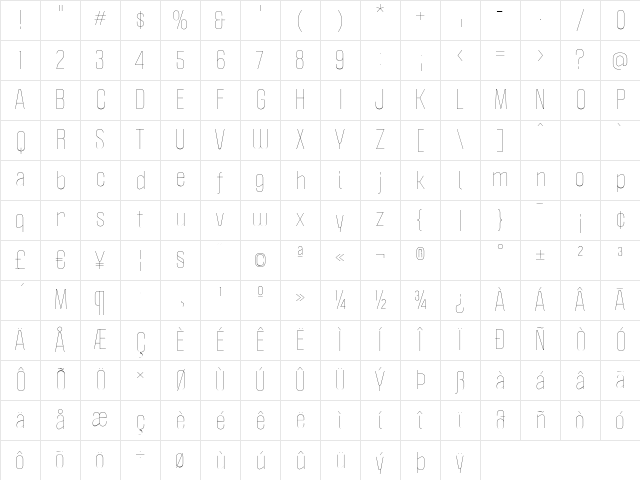
Politica Thin Regular
Foundry: Alejandro Paul
Designer: Alejandro Paul & Alfredo Graziani
Politica Thin Family
Design Context for Politica Thin
Politica Thin is a composed and adaptable typeface that performs quietly and consistently across a wide range of design contexts. Its slender proportions lend an understated elegance to any composition.